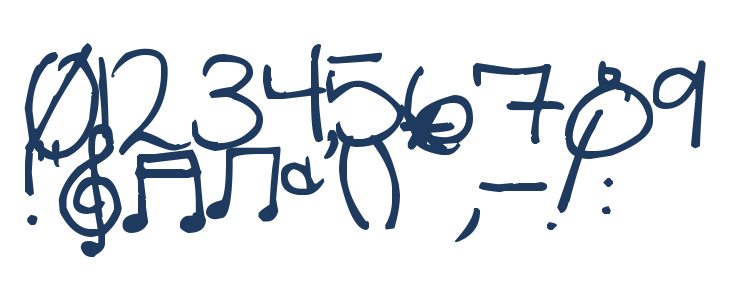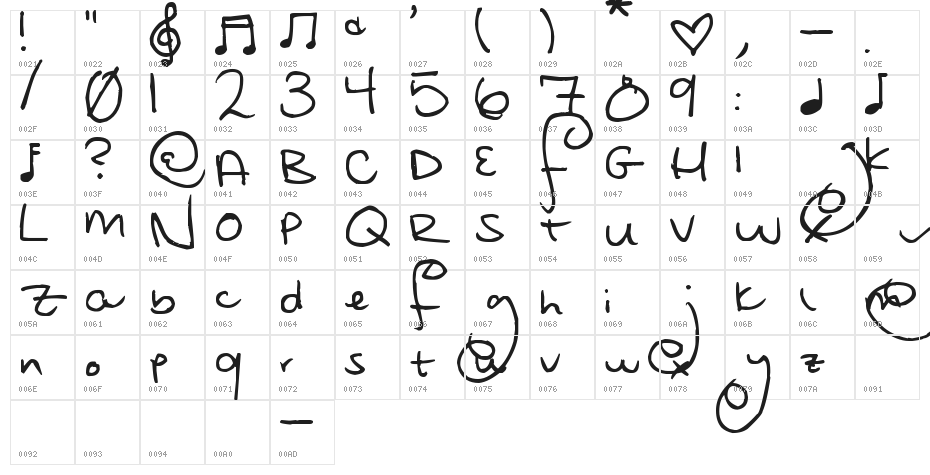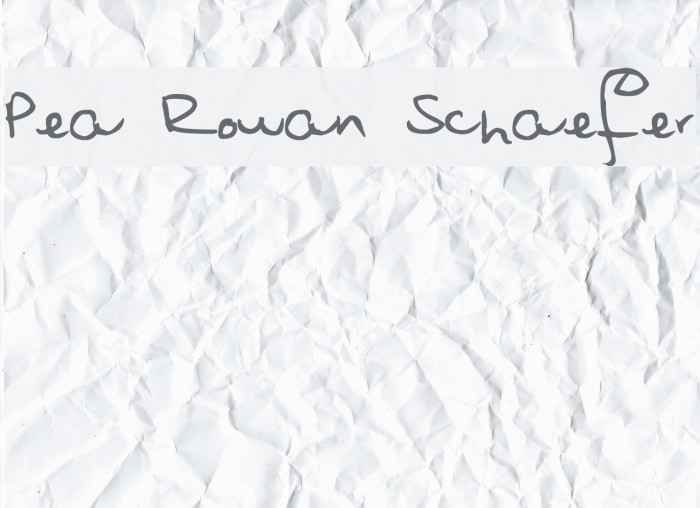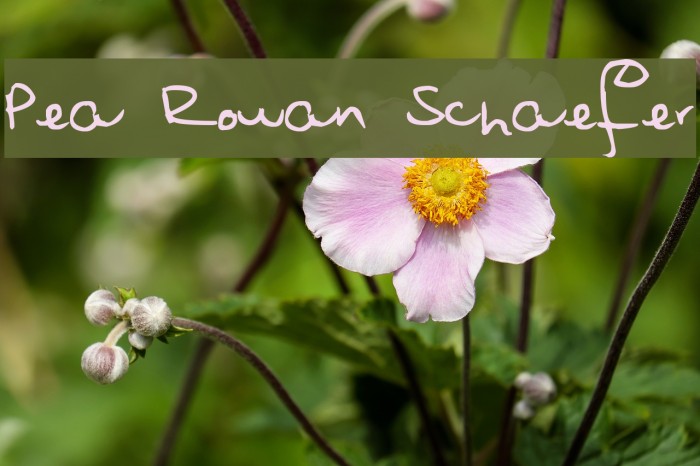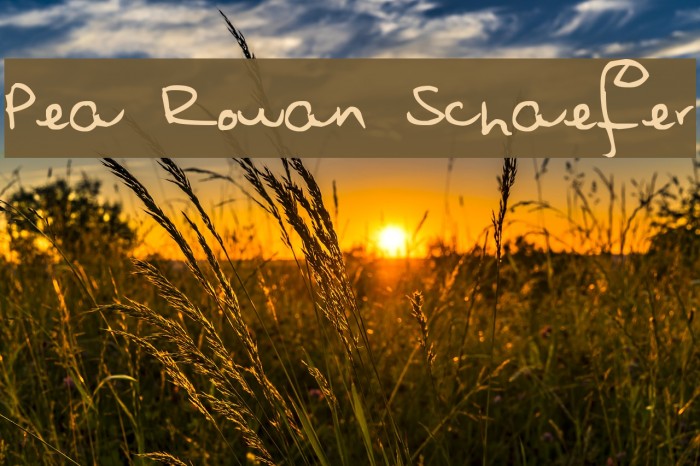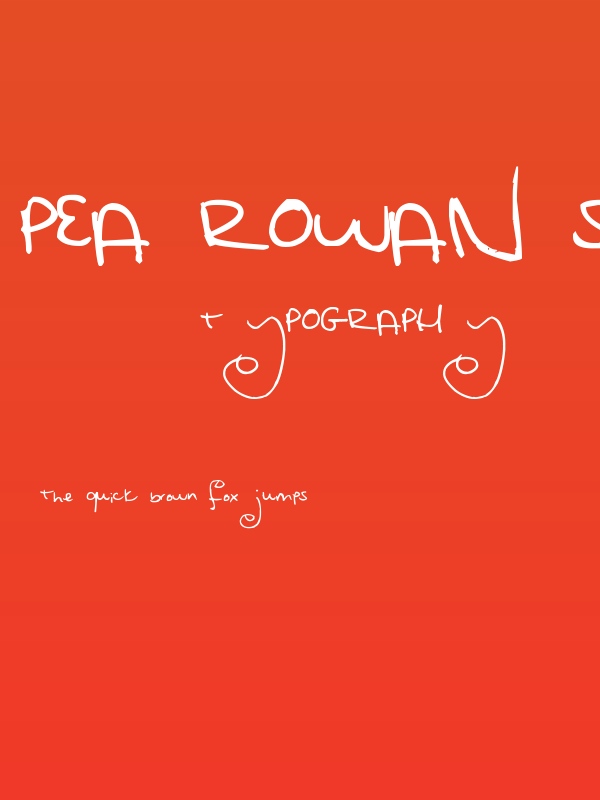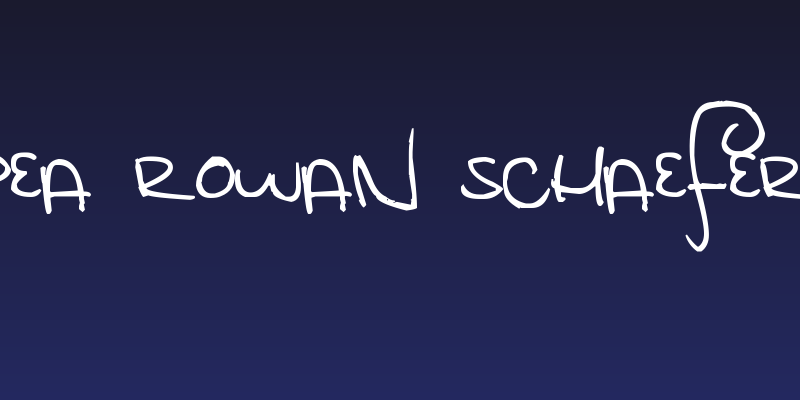
Pea Rowan Schaefer Font
Pea Rowan Schaefer Description
This font exudes a playful and whimsical character with its handwritten style. The letters are free-flowing and feature a mix of thick and thin strokes, giving it a dynamic and lively appearance. The uppercase letters are bold and prominent, while the lowercase letters maintain a consistent flow with occasional loops and swirls, adding to its charm. Numbers and special characters follow the same playful theme, making it versatile for creative projects. The overall look is informal and artistic, perfect for adding a personal touch to any design.